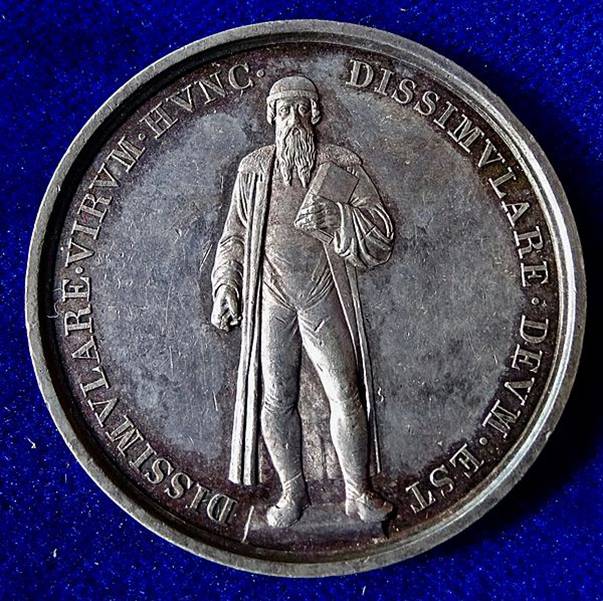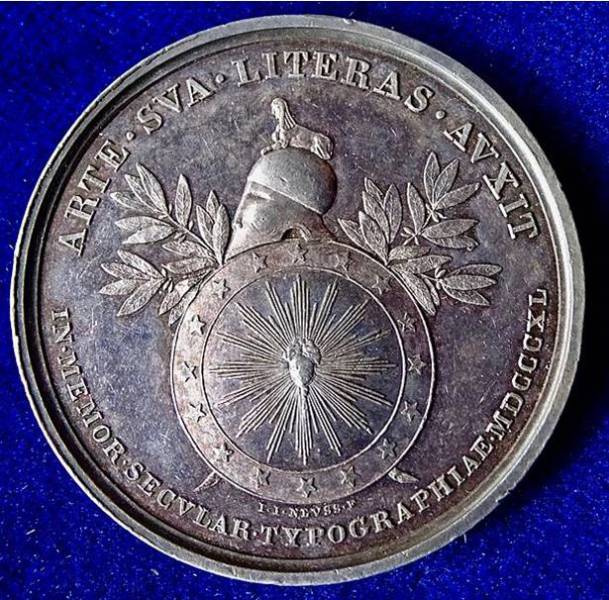
Johannes Gutenberg
1000 Francs CFA - Benin  Johannes Gutenberg    1999
500 Francs CFA  2005
Gutenberg Mainz, Germany, Silver Medal 1840, Gutenberg Printing Press 400th Anniversary.
Around the Gutenberg monument in Mainz by Thorwaldsen: "DISSIMVLARE · VIRVM · HVNC · DISSIMVLARE · DEVM · EST"/ Around Gorgoneion on shield: "ARTE · SVA · LITERAS · AVXIT IN · MEMOR · SECVLAR · TYPOGRPHIAE · MDCCCXL".
In the 1970s and 1980s, a New Zealander named Bruce Grenville began a hoax, claiming to have founded the Sultanate of Occussi-Ambeno. He invented a history for the Sultinate and produced many cinderella stamps for his creation. On 13 October 1977 he produced these stamps to mark the 600th anniversary of the birth of Gutenberg.
190 30¢ Violet & red
191 75¢ Yellow & blue
192 $1.35 Brown & red
193 $3 Silver & light blue
1900, Nurnberg (City). "500th Birthday of Johannes Gutenberg" Medal.
Obverse: Draped and caped bust of Johannes Gutenberg 3/4 right. Legend:  JOHANNES GUTENBERG * MCCCC-MDCCCC *
Reverse: Three coat-of-arms (German Empire above / Nurnberg below), bound together with a band, above date (1900). Legend: * Z. 500 JÄHR. GEBURTSFEIER GUTENBERG'S * D.NÜRNBERGER BUCHDRUCKER * Translated:  "For the 500th Birthday Jubilee of Gutenberg, the book printer of Nurnberg."
10 Mark coin from the German Democratic Republic in 1968 for the 500th anniversary of the death of Johann Gutenberg
In the early 1930s, Swiss firm Chocolat Tobler edited a series of loose sheets which included stamps and biographies of famous men and women from ancient times to recent.
Here is the Gutenberg card
Issued on 11 November 1968    5 Mark (500th death year printer Johannes Gutenberg)
Front: Emblem (eagle looking left)
above (value) 5 between (year) 19 and 68
legend: (state name) BUNDESREPUBLIK DEUTSCHLAND
(bottom, currency between spacers/dots) •DEUTSCHE MARK•
mint mark (inside 5) G (Karlsruhe)
Back: Johannes Gutenberg
(front-right)
* c. 1395 Mainz, Electorate of Mainz Holy Roman Empire
† February 3, 1468 (aged 73) Mainz, Electorate of
Mainz, Holy Roman Empire
legend: (name, left) JOHANNES (right) GUTENBERG •
(bottom-right, death year) +1468
Homage to Gutenberg                 Brazil   24 June 1900
Germany Silver Medal Johannes Gutenberg Mainz 1440 1940       500 years of book printing
Körper und Stimme leiht die Schrift dem stummen Gedanken. Durch der Jahrhunderte Strom trägt ihn das redende Blatt.
Translation - Writing lends body and voice to the silent thought, The speaking paper carries it through the centuries-old stream.
Part of a quote from Friedrich von Schiller
With regards to the invention of printing one might look more closely at how the Romans branded vineyard names on their wine barrels.  It looks like Bembo caps about 48 point!  With red  hot bronze stamps .  Now I wonder how those stamps were made . ...
Stollwerck Schocolade collector's card from 1931       Series: The German Rhine, picture 34      Gutenberg's lever printing press
C. H. Knorr AG,    Collector's cards from from various dates, the earliest being c.1900
CARD 1      Gutenberg, first hand printing press around 1430
CARD 2      Gutenberg, wooden printing press 1600
CARD 3      Gutenberg, Stanhope hand press 1798
CARD 4      Gutenberg, first treadle press invented by Hobkinson 1805-1814
CARD 5      Gutenberg, modern high-speed letterpress press, 1829
CARD 6      Gutenberg, rotary press invented by Marioni, 1867-1900
Bronze medal 1818, Germany   Johannes Gutenberg.
Reverse translates as 'a mogul was born in Germany'
born 1400   died 1468
Switzerland advertising brand advertising token around 1950 Bern / From Gutenberg to Bubenberg
GOTT GRUSS DIE KUNST = GOD BLESS THE ART